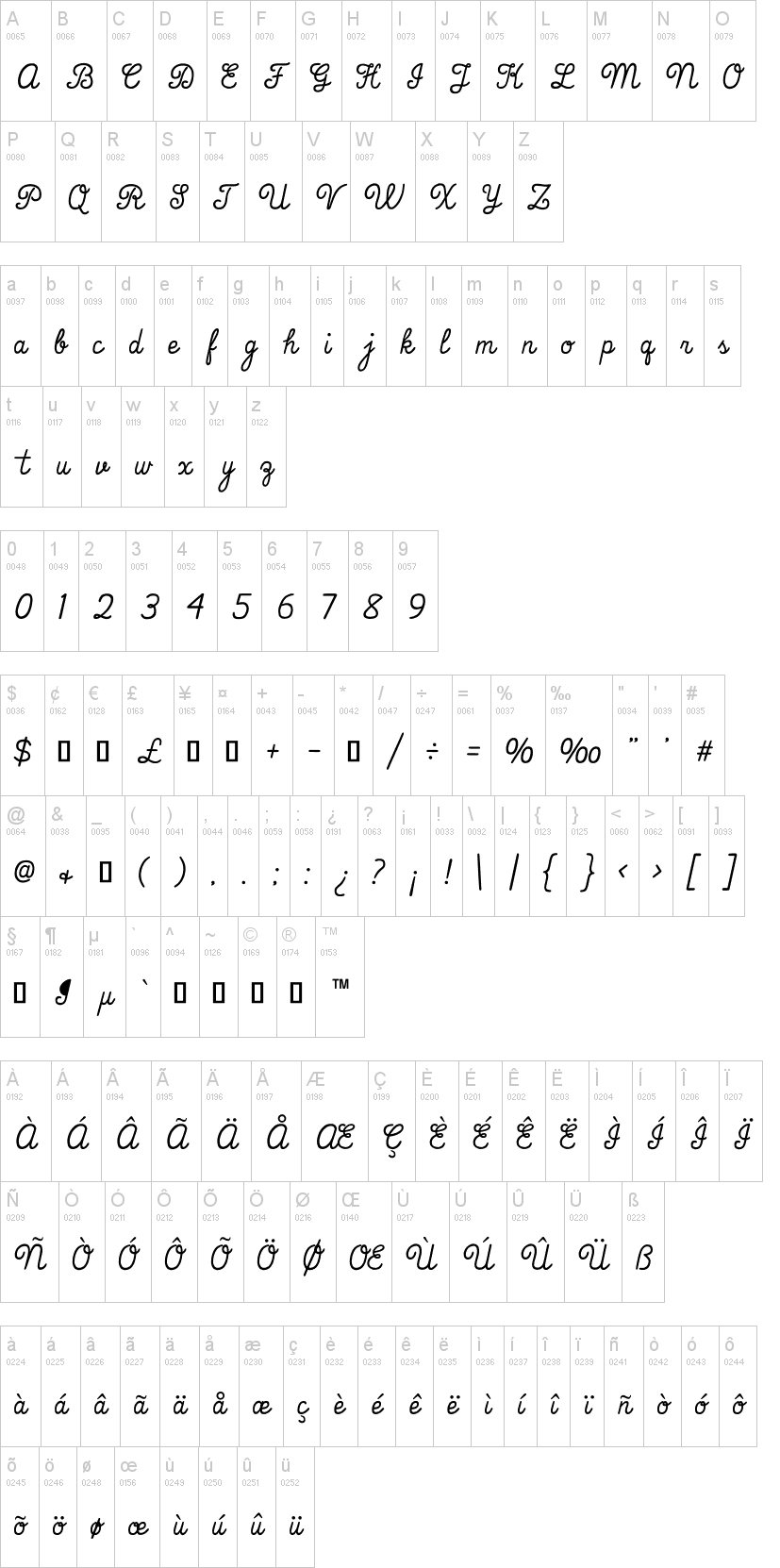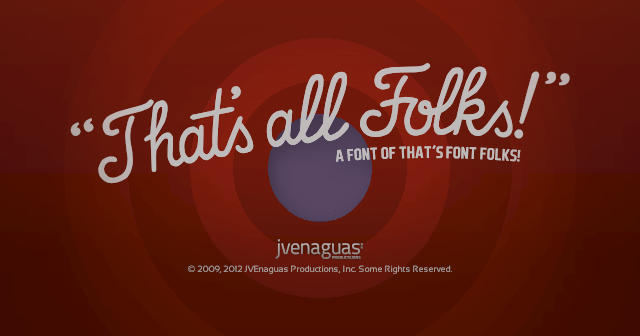
Note of the authorThis font has designed by Jayvee D. Enaguas and it has inspired in mid-30s to present font of Looney Tunes and Merrie Melodies ending screen.